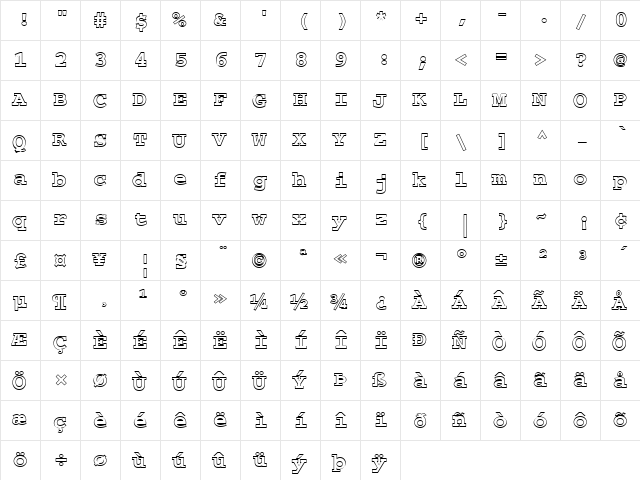
FZ BASIC 54 HOLLOW Bold Font Preview
FZ BASIC 54 HOLLOW Bold
Design Context for FZ BASIC 54 HOLLOW Typeface
FZ BASIC 54 HOLLOW takes a measured approach to typography — its balanced proportions and neutral character make it a reliable workhorse for both digital and print work. Its bold stroke weight gives it real presence on the page.